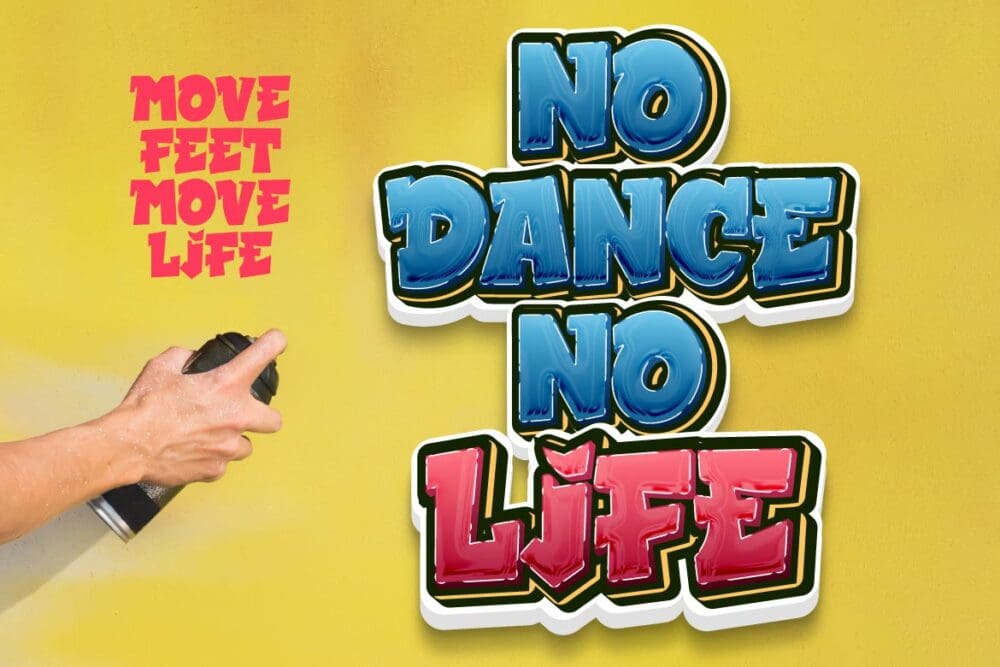
Delliger Font
Delliger Font is a stunning, energetic display typeface with eye-catching forms, is now available. This font is ideal for graffiti-themed projects, outdoor projects, special events, penning lovely quotes, and much more. With this font, you can make your project gorgeous and memorable for everyone.